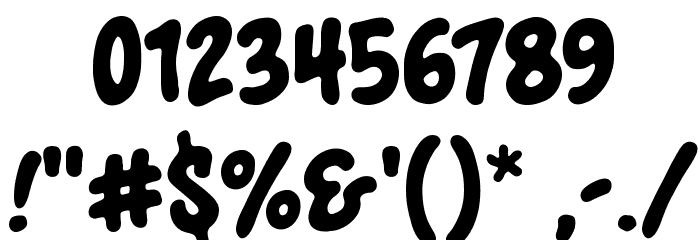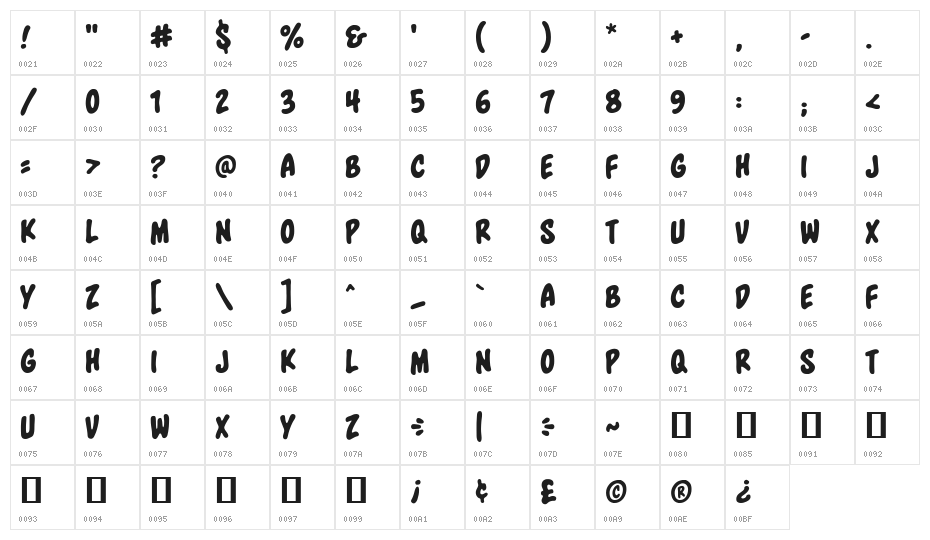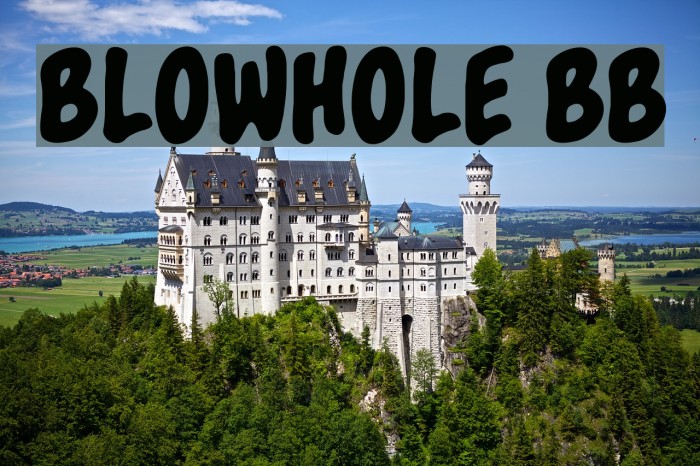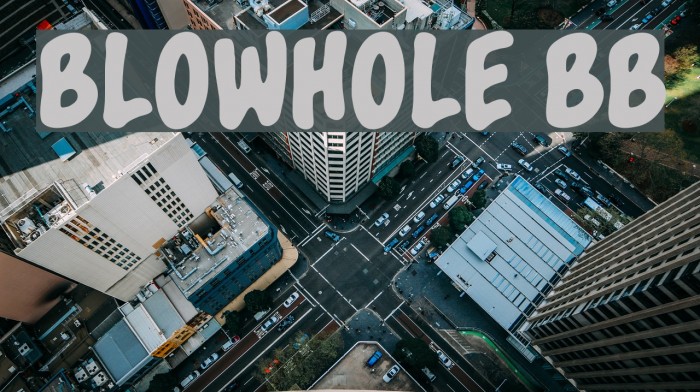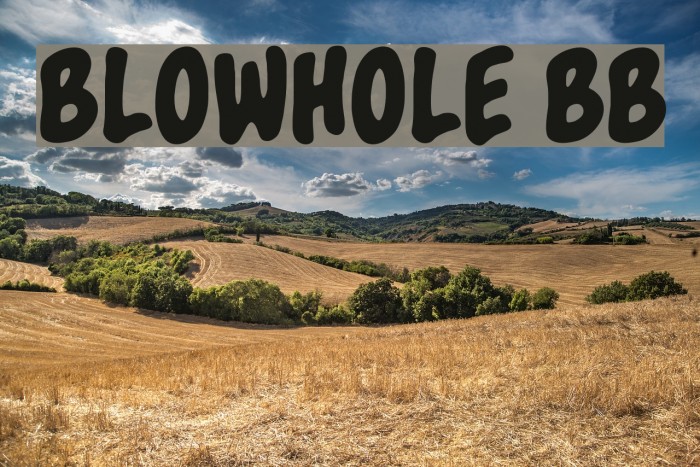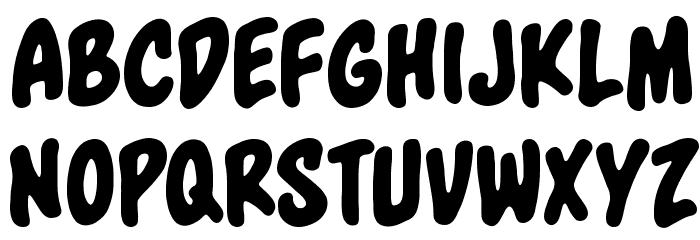
Blowhole BB Font
Blowhole BB Description
This font features a bold and playful design with thick, rounded strokes that give it a friendly and approachable appearance. The characters are uniformly bold, with a consistent weight throughout, making them highly legible and impactful. The rounded edges and slightly irregular shapes add a whimsical touch, perfect for creative and informal projects. The font maintains a consistent height across all characters, ensuring a balanced and cohesive look. Its boldness and unique style make it suitable for eye-catching designs.
| Proposed Projects | Ideal for children's books, playful branding, posters, and creative advertisements. |